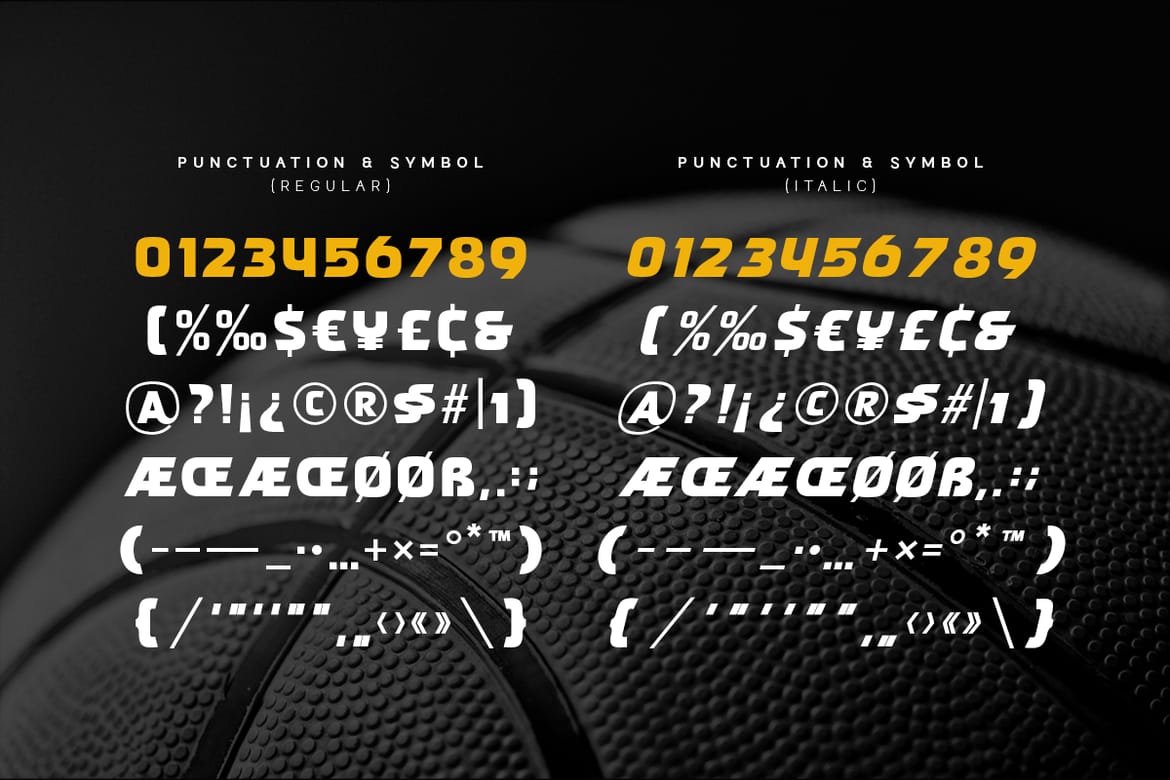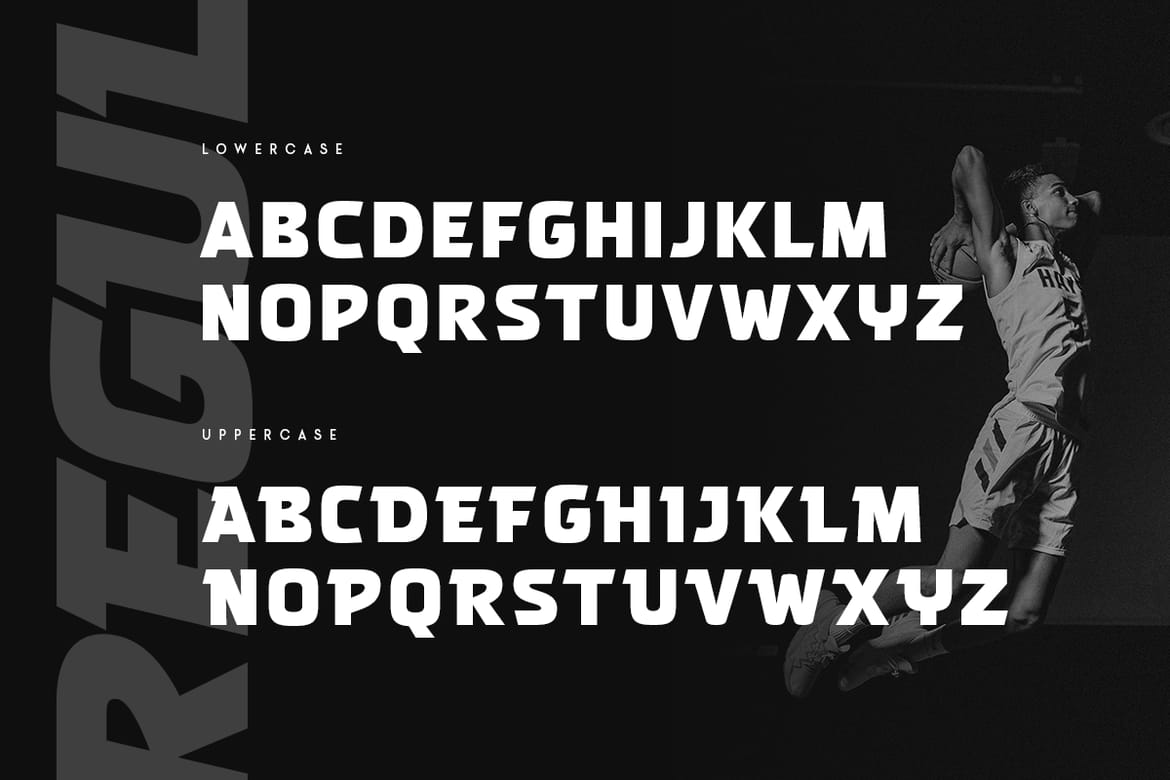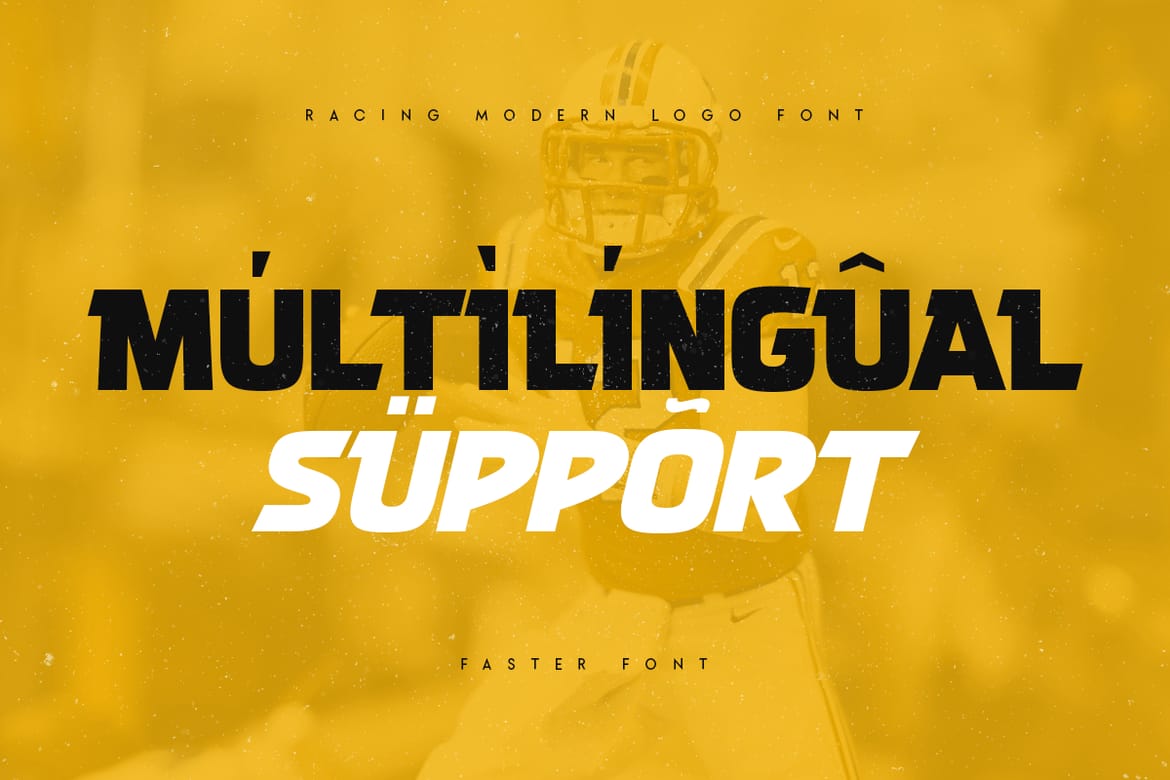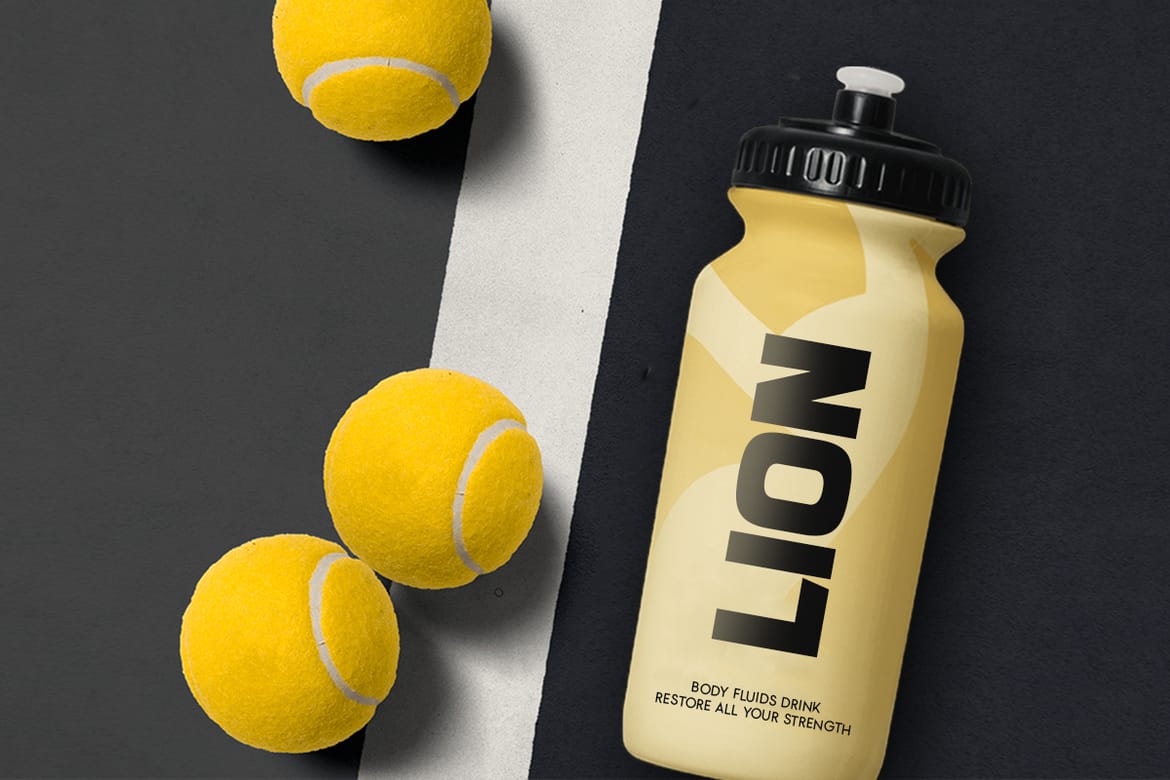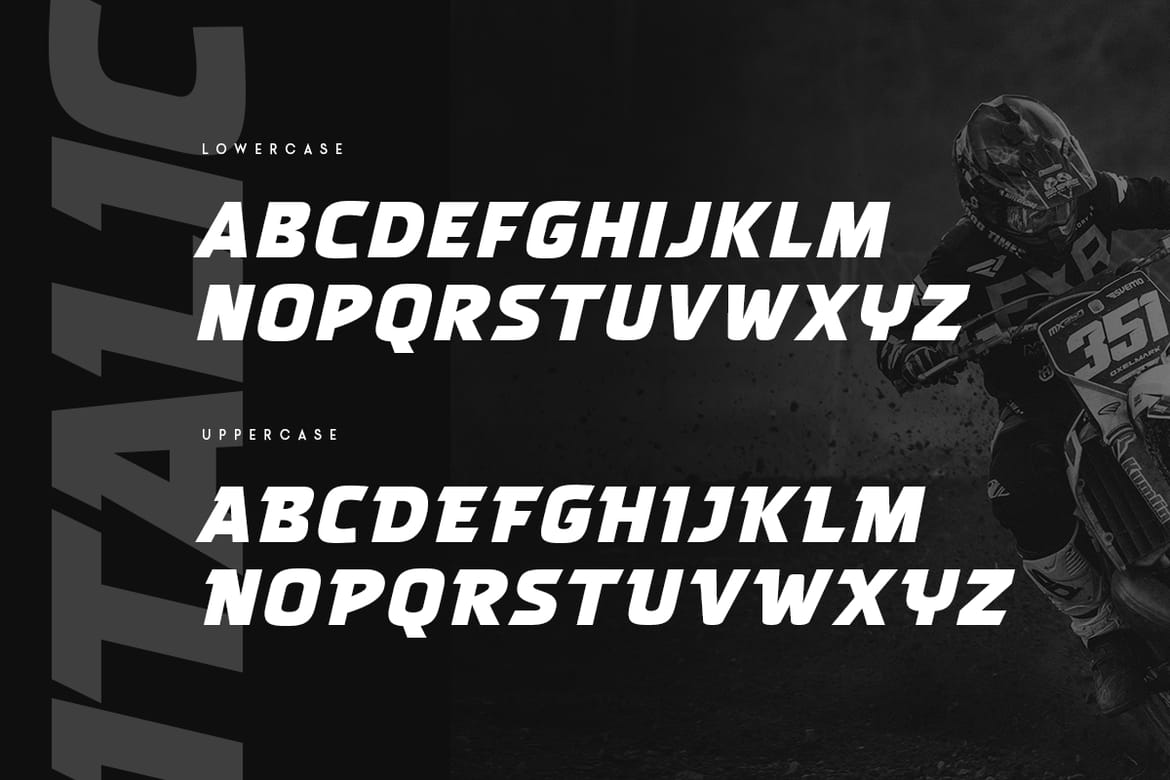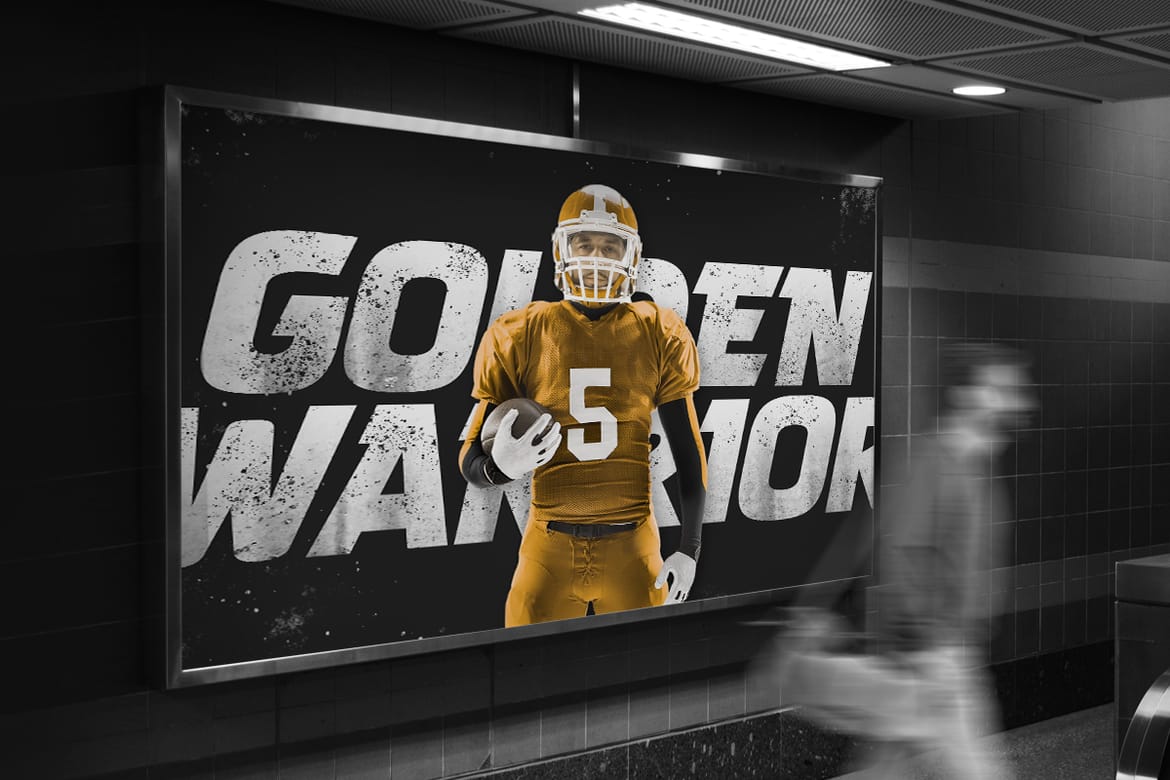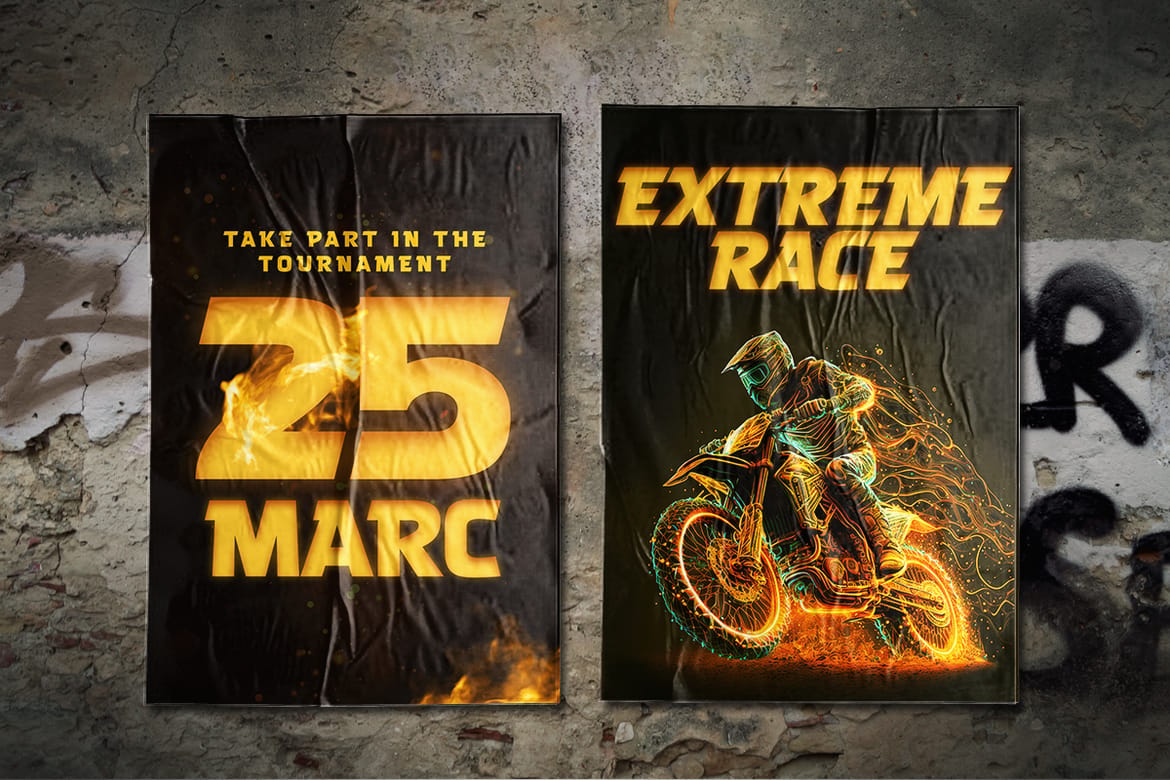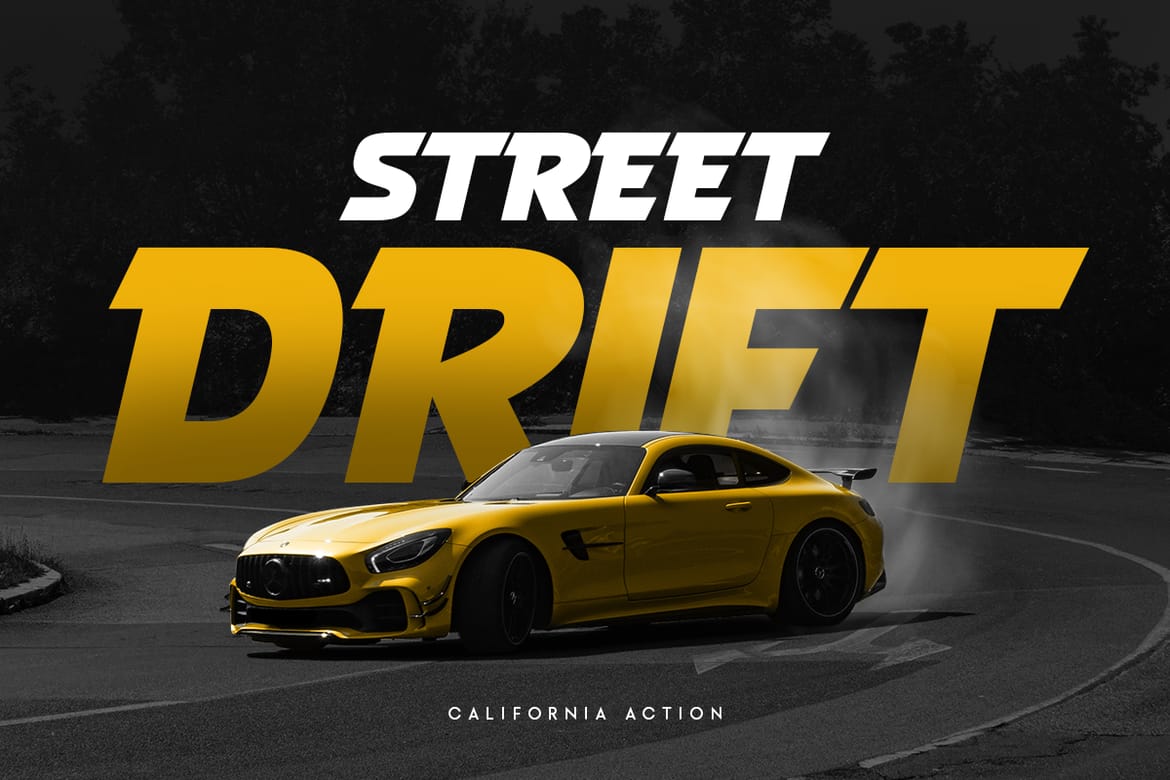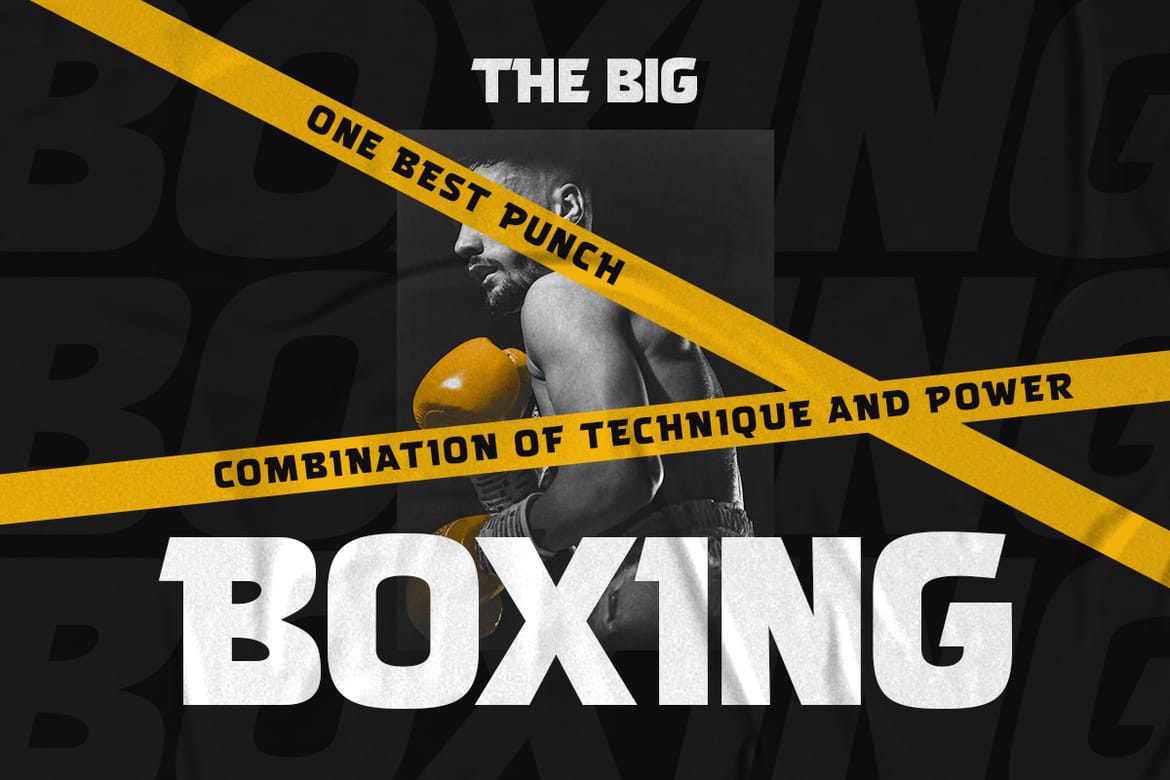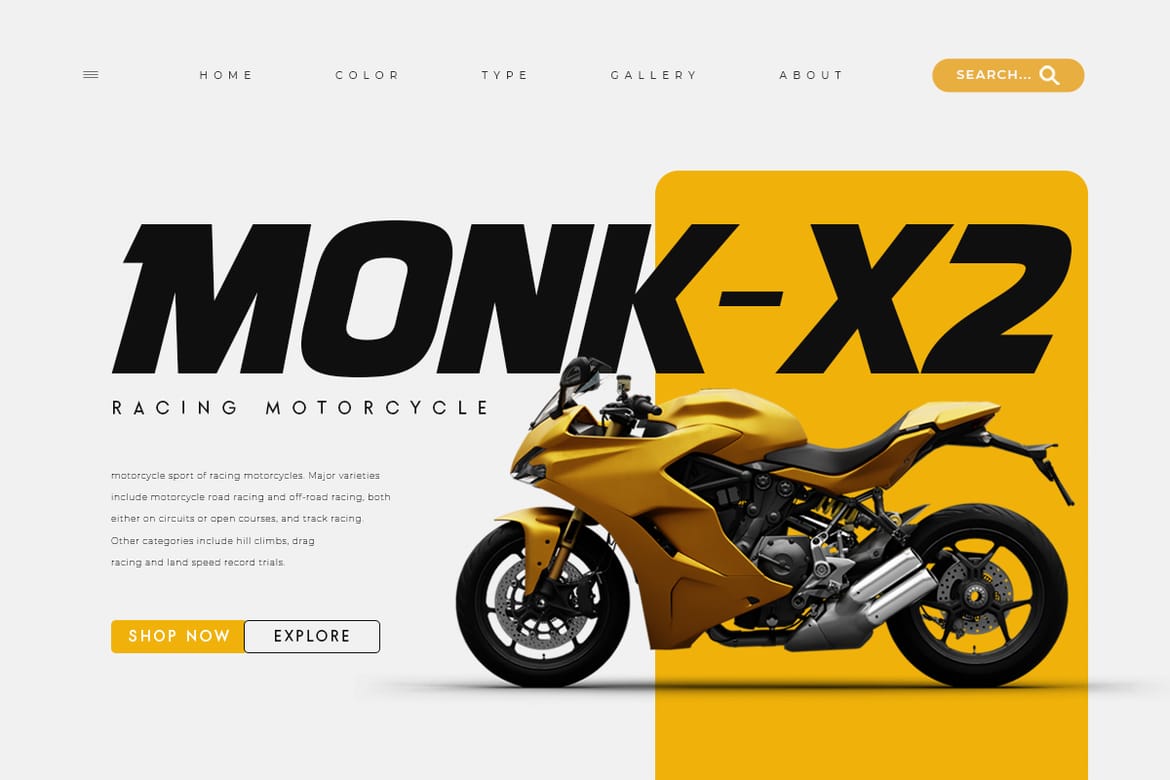
Faster Racing Modern Logo Font is a Modern Logo Racing Font that Modern, Racing and unique characters are ready for Race event, that you can combine to get any variations and unique shapes easily just in seconds with great characters. It is a Sans Serif Bold font with regular and Italic version that perfect for sport branding projects, jersey, logo, wedding designs, social media posts, advertisements, product packaging, product designs, label, watermark, and any projects, it makes with a high level of legibility.
Character set A-Z
All Uppercase
Numerals & Punctuation
Accented Characters (West Europe)
- Bold racing-style display font
- Regular and Italic versions